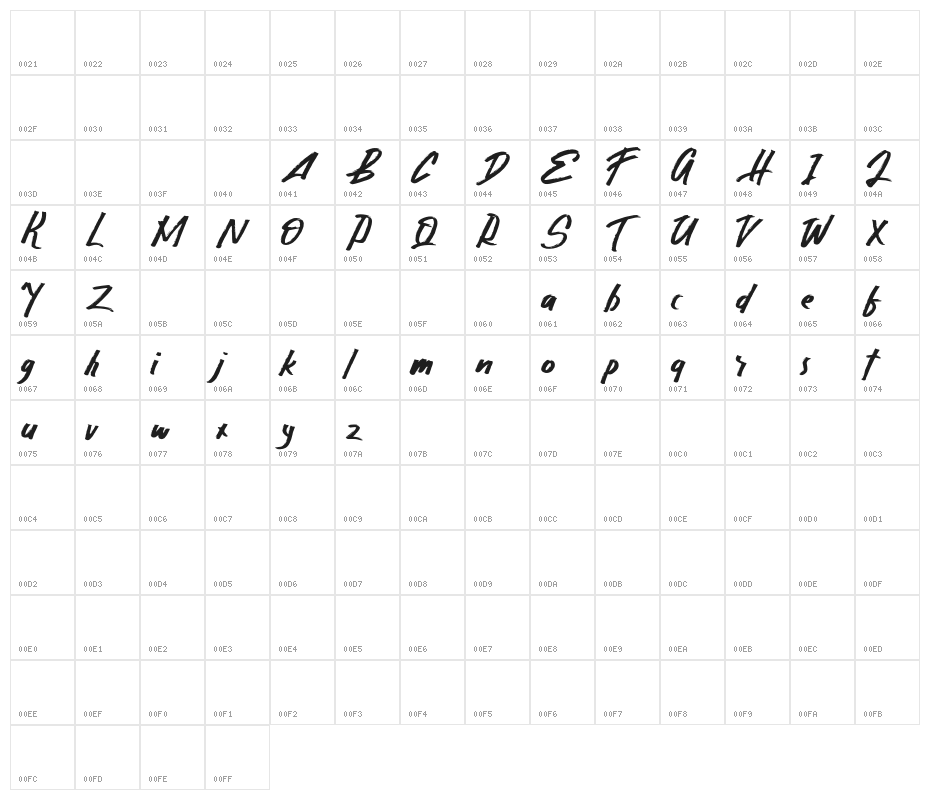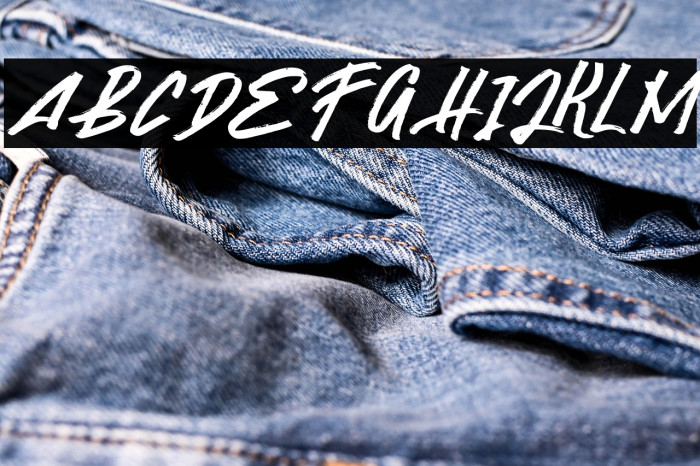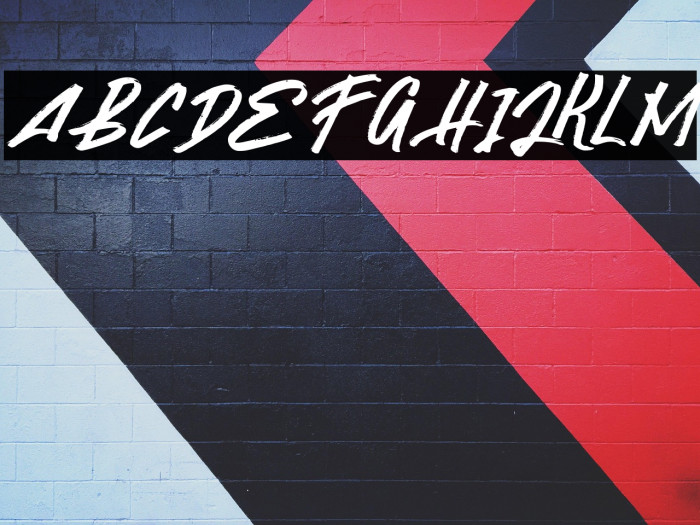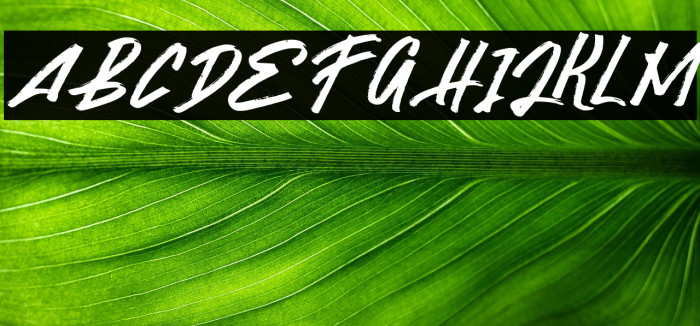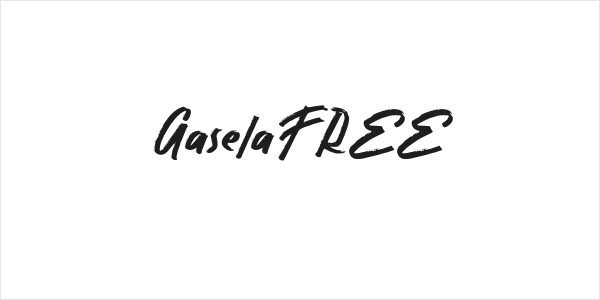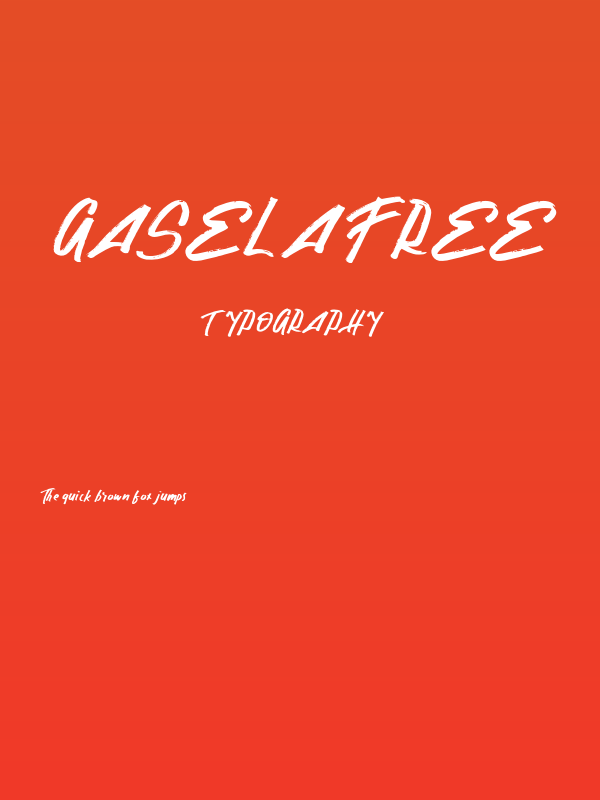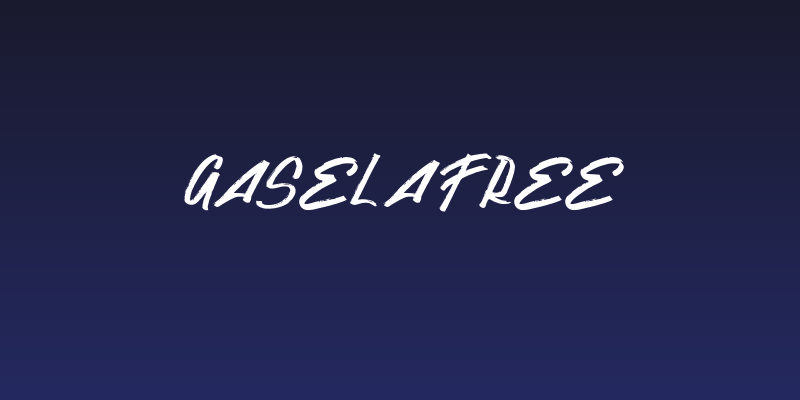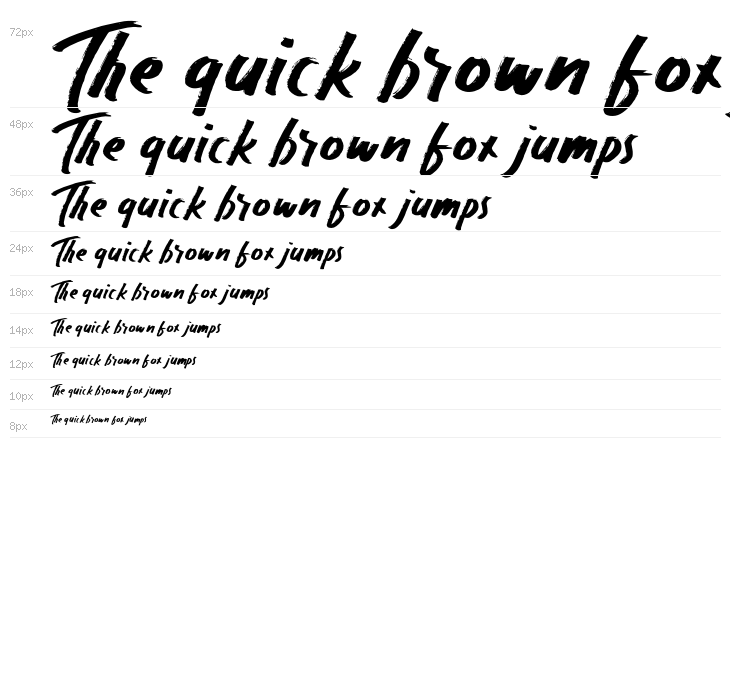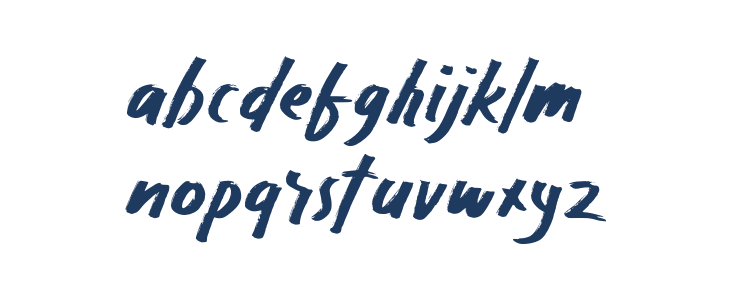
GaselaFREE Font
GaselaFREE Description
This font features a bold and expressive style with a brush-like appearance, giving it a dynamic and energetic feel. The strokes are thick and uneven, adding a sense of movement and spontaneity. The uppercase letters are slightly slanted, enhancing the casual and informal look. The lowercase letters maintain the same boldness, with some characters having unique flourishes that add character. The numbers and special characters follow the same stylistic approach, ensuring consistency throughout. This font is ideal for projects that require a strong visual impact and a touch of creativity.